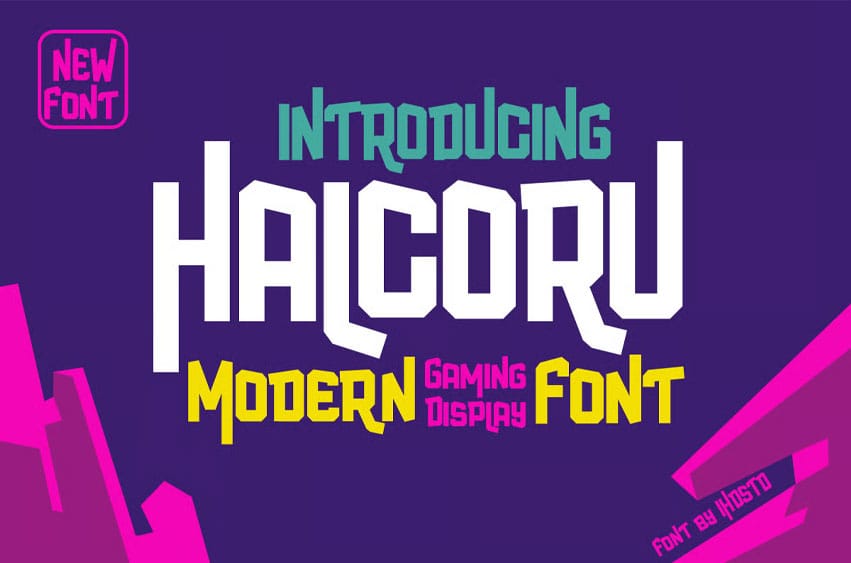
Halcoru Font Gaming Display Font, a typeface engineered for high-octane visual impact. Designed with the dynamic energy of the competitive world in mind, Halcoru is the ultimate choice for projects spanning Gaming, Esports, Sports, and dynamic action themes.
With its bold, angular, and futuristic design, Halcoru immediately grabs attention and conveys a sense of speed, strength, and adrenaline. It’s perfectly suited for:
Game Logos & Titles: Give your game the iconic look it deserves.
Esports Team Branding & Merch: Stand out in the arena with impactful, powerful lettering.
Sports Posters & Banners: Capture the excitement of the game.
Twitch/YouTube Stream Overlays: Command your audience’s focus.
Action Movie Posters & Sci-Fi Graphics.